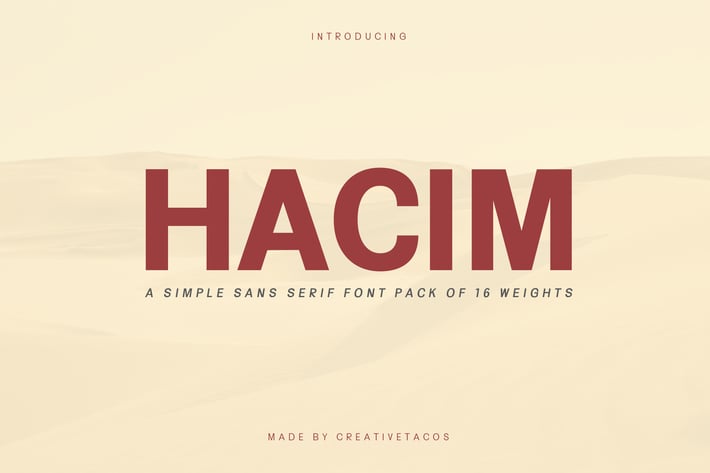
Hacim Simple Sans Serif Font Family
Hacim is a modern geometric rounded sans serif typeface consisting of 16 weights which contains complete basic glyph with multilingual support. Hacim will be perfect for logo, packaging, greeting cards, presentations, headlines, lettering, posters, branding, quotes, titles, magazines headings, web layouts, art quote, typography, advertising, invitations, packaging design, books, book title, and nearly any creative design.
Hacim Font Features:
- Uppercase Letters
- Lowercase Letters
- Non English Characters ( Latin Supplement + Latin Extended A)